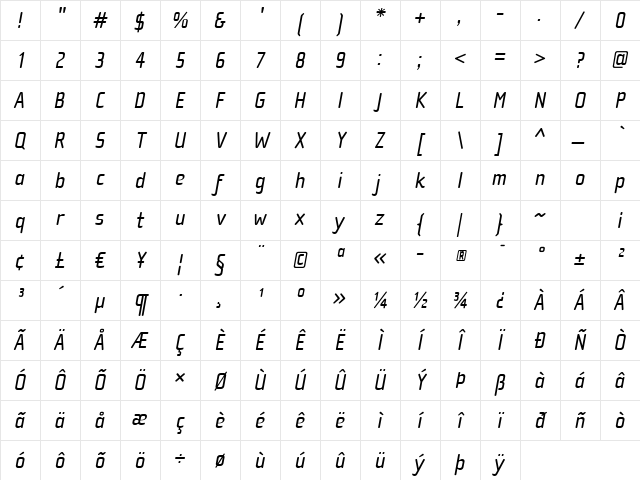
ChollaSans Medium Italic Free Font
ChollaSans Medium Italic
Design Context for ChollaSans
ChollaSans is a composed and adaptable typeface that performs quietly and consistently across a wide range of design contexts. The slanted form adds forward momentum and visual energy.
Pro Tip: Use ChollaSans for emphasis, pull quotes, and subheadings where its slanted energy can add rhythm to the layout.